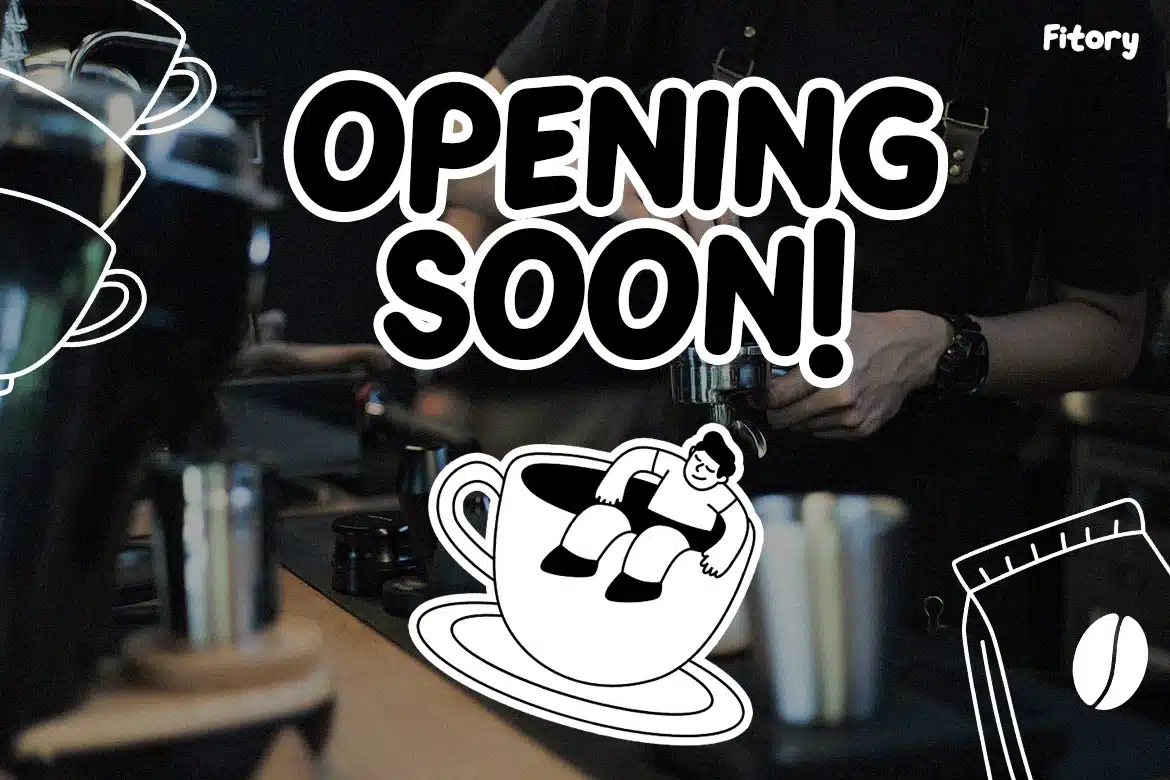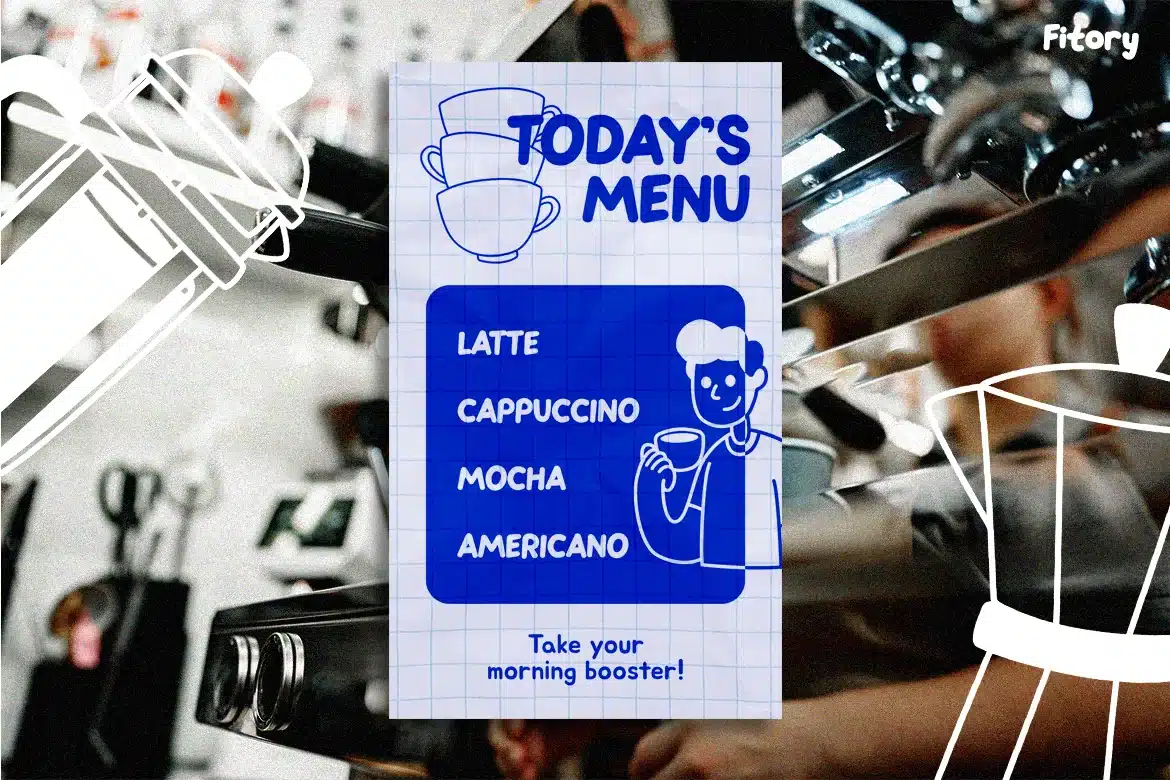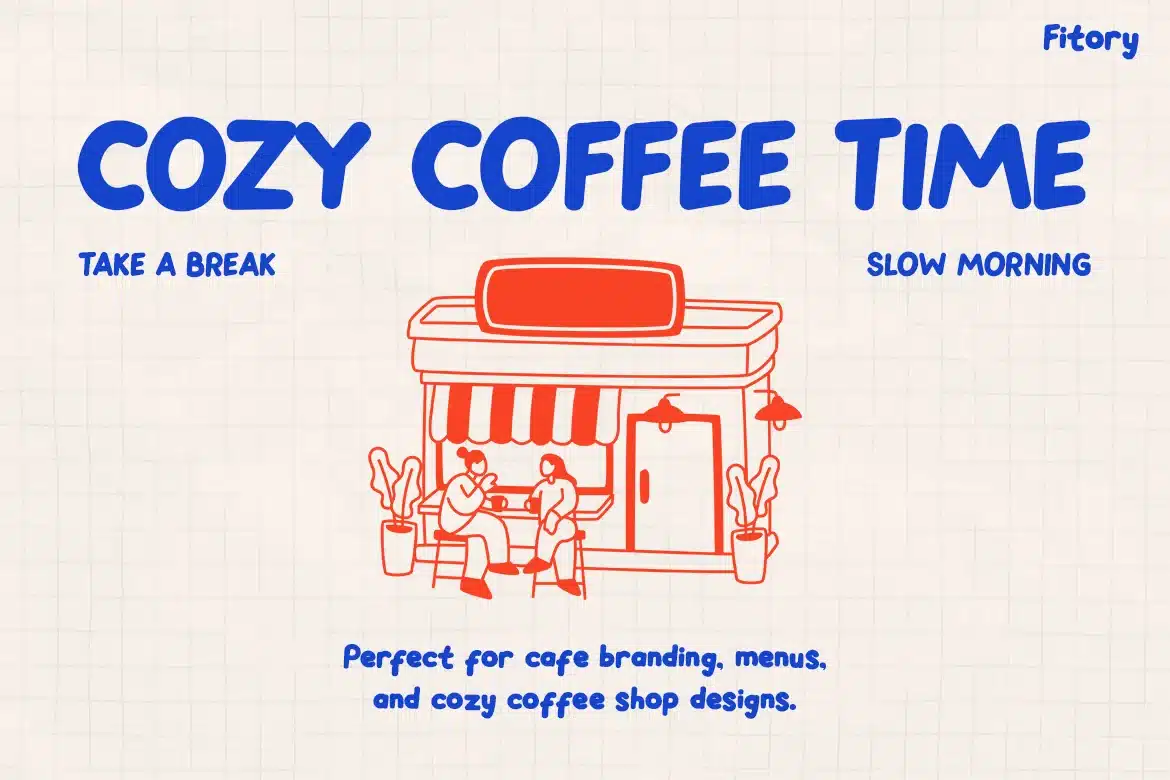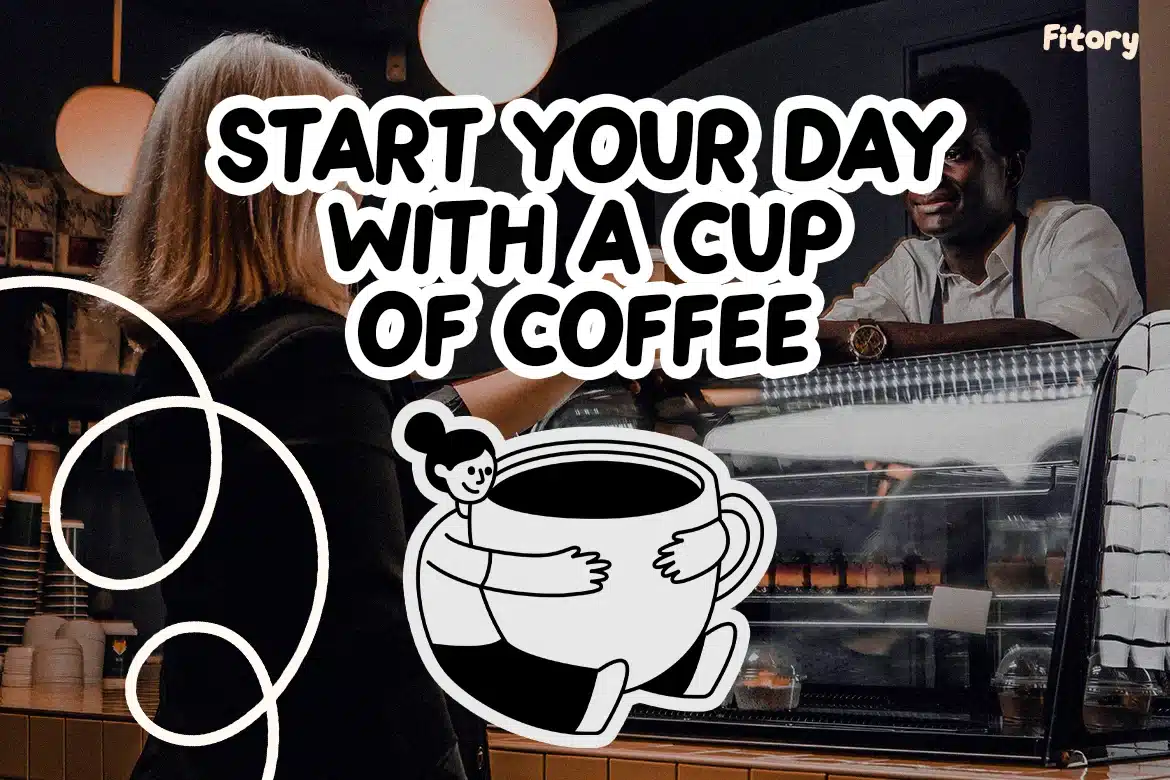
Fitory – Friendly Handwritten Display Font
Fitory is a cozy handwritten display typeface designed for coffee branding and café visuals, featuring soft rounded strokes, smooth curves, and a relaxed baseline that creates a warm and inviting tone. Its low-contrast structure and friendly proportions make it easy to read while maintaining a playful personality, ideal for café menus, social media graphics, packaging, and lifestyle branding.
From coffee shop menus and takeaway packaging to Instagram posts and promotional posters, Fitory brings a warm and welcoming feel to every design. Its casual and friendly vibe helps brands connect emotionally with customers—perfect for businesses that want to feel approachable, modern, and memorable.
Key Features :
Warm & Cozy Personality
- Creates a friendly and inviting tone for café and lifestyle branding.
Rounded Handwritten Style
- Soft curves and natural flow give a relaxed and human touch.
Perfect for Coffee Branding
- Ideal for menus, logos, posters, packaging, and social media.
Clear & Readable Display
- Balances playful style with strong legibility for headlines.